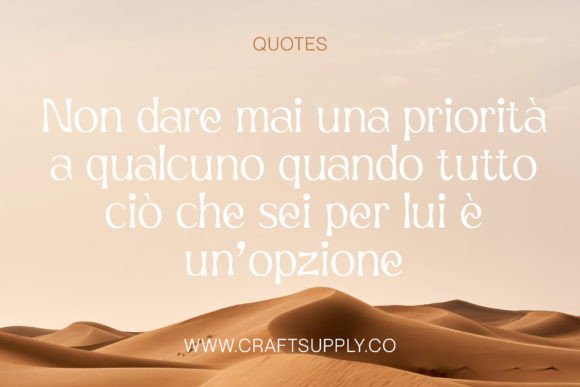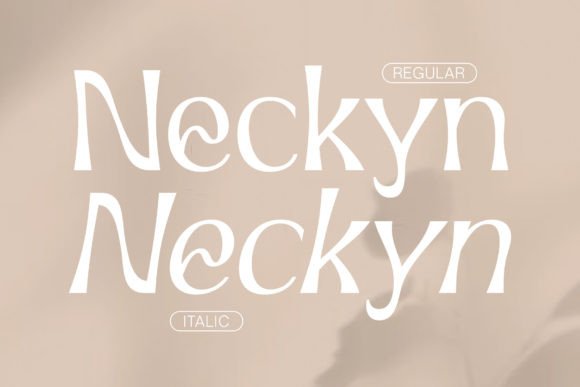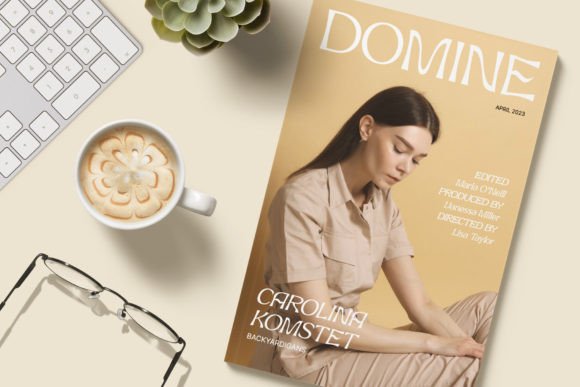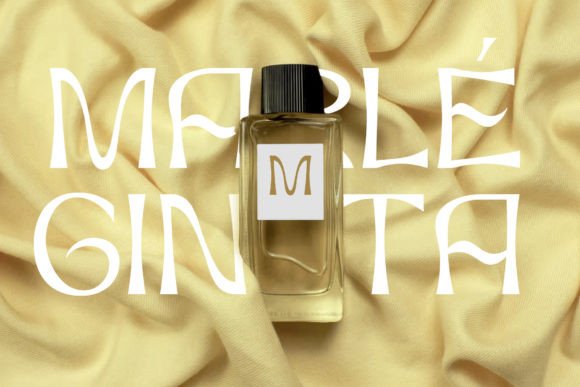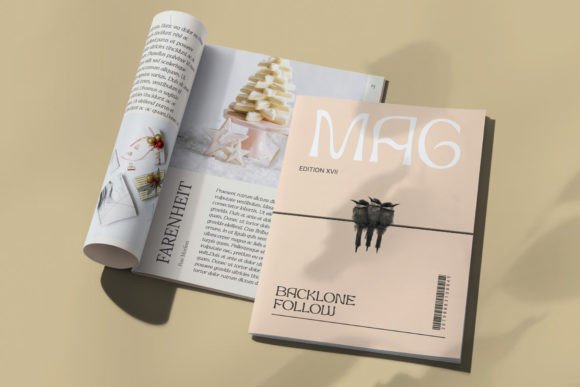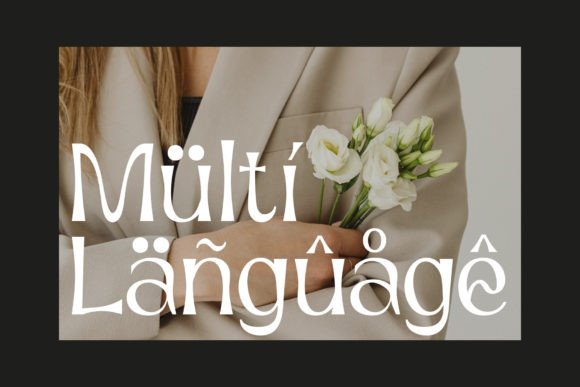
Introduction to Neckyn Font
Introducing Neckyn – Quirky Sans Serif: A playful typeface that embraces individuality with its unique character.
With its unconventional shapes and quirky charm, Neckyn adds a distinctive touch to any project, making a charming statement that stands out from the crowd This typeface is ideal for greeting cards, packaging, brand identity, posters, or any purpose to make your design project look eye-catching and trendy.
Key Features of Neckyn Font